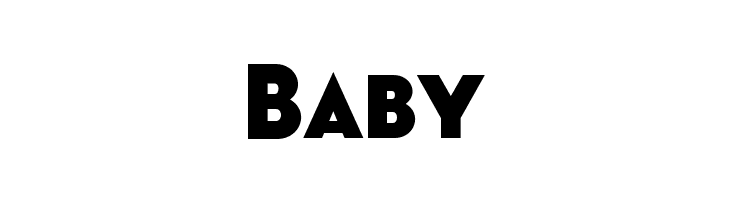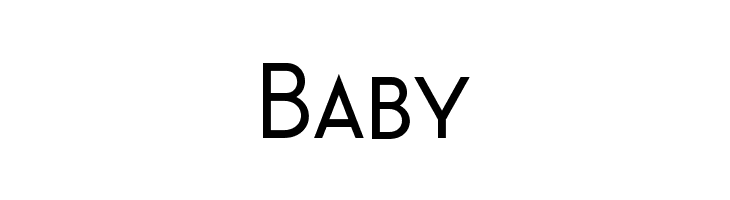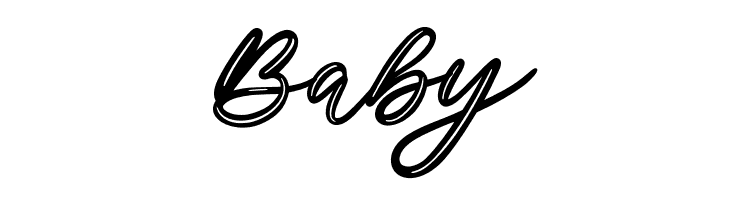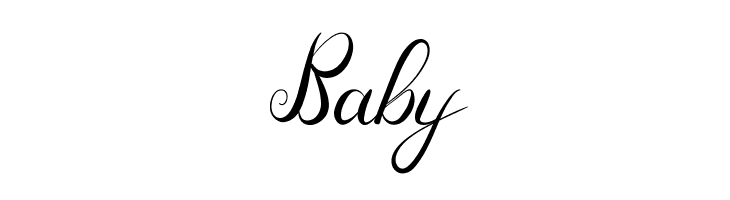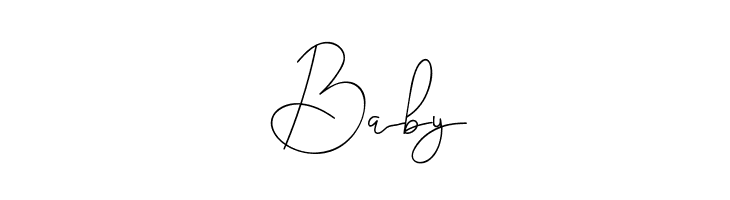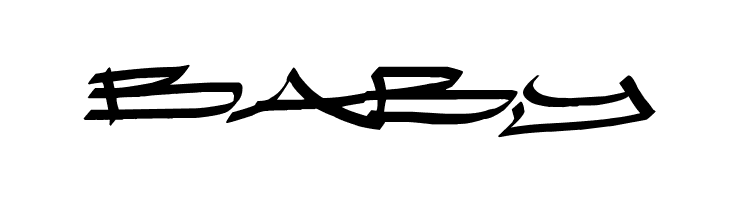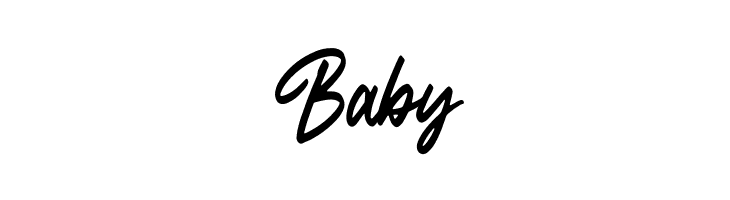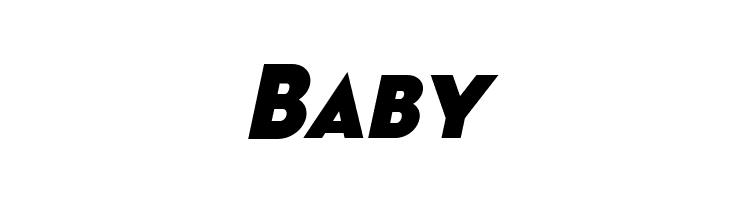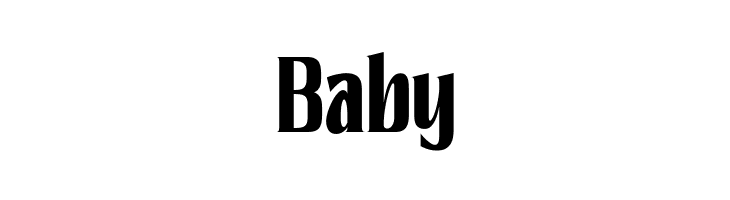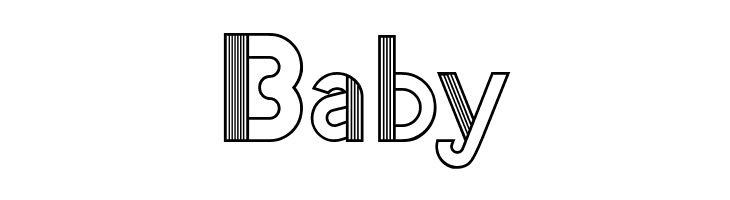
• Old Excalibur Demo Vintage
A bold, vintage font with a distressed, weathered texture and sharp serifs.
• Old Maquine DEMO
A modern, geometric font with clean lines and a futuristic style.
• Old Note Demo
A distressed, grunge-style font with a bold, rugged appearance.
• Old Note Demo Bold
A bold, distressed font with a grunge texture and vintage appeal.
• Old Palinama - Demo
A playful, bold font with rounded, bubbly characters perfect for fun and creative projects.
• OLD SYDNEY_DEMO
A playful, handwritten-style font with smooth curves and a casual vibe.
• Oldwin Demo
A modern, geometric font with clean lines and a rhythmic style.
• Oldwin Demo Script
A dynamic and elegant script font with fluid, sweeping strokes.
• Olive _DEMO
A bold, handwritten font with dynamic and expressive strokes.
• Olyber Demo
An elegant script font with flowing, interconnected letters and a sophisticated style.
• OMEGA FREE
A futuristic, circuit-inspired font with geometric lines and dots.
• Omerta-Demo
A bold, intricate Blackletter font with high contrast and decorative elements.
• Omniface Demo Version
A bold, expressive handwritten font with brush-like strokes.
• One more week of school
• ONECHUX
A bold, expressive handwritten font with smooth, flowing curves.
• ONIGASHIMA Demo Version
A dynamic, edgy font with sharp, angular strokes and a graffiti-like style.
• Only Friend Demo
An elegant, flowing script font with delicate, thin strokes and cursive letterforms.
• Only One Dollar Demo Bold
• Only One Dollar Demo Bold Italic